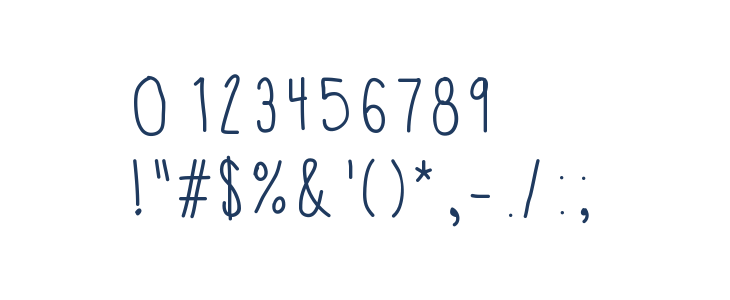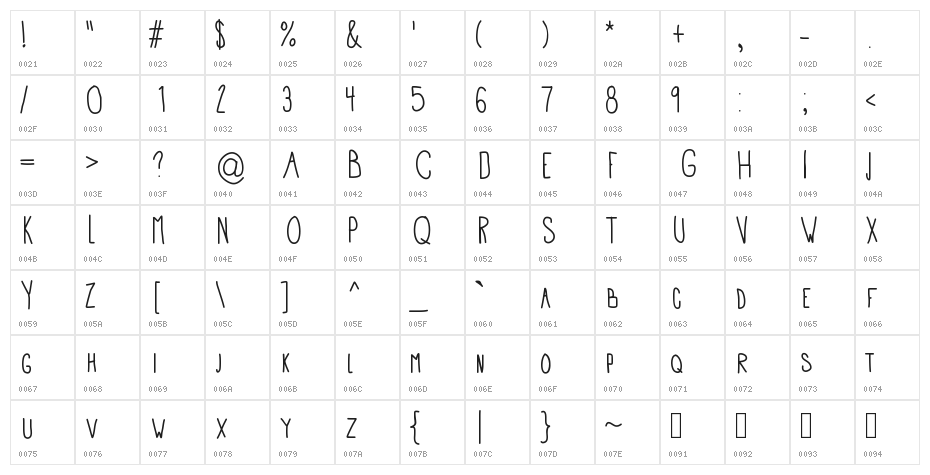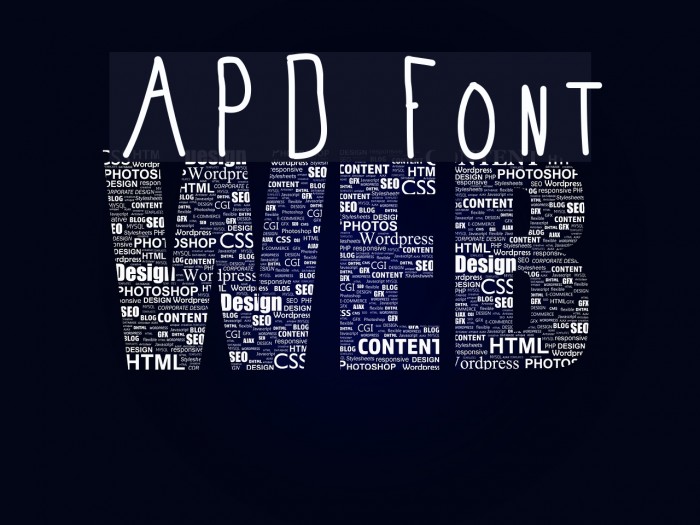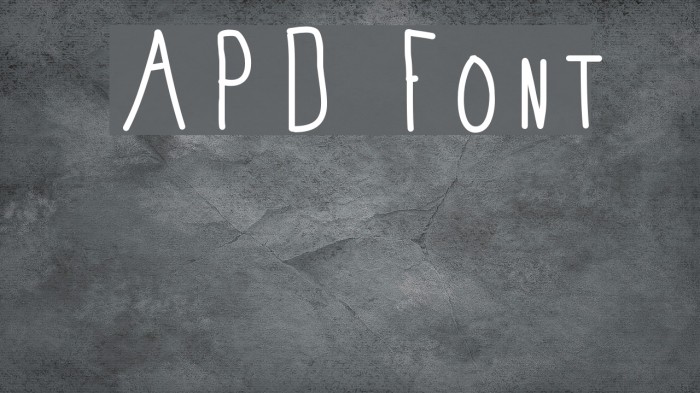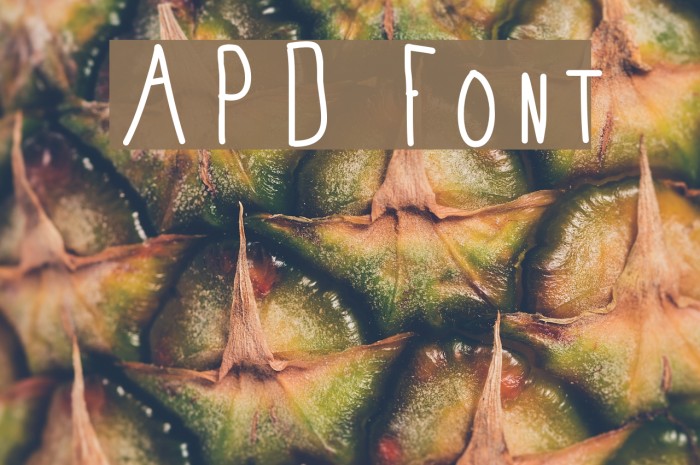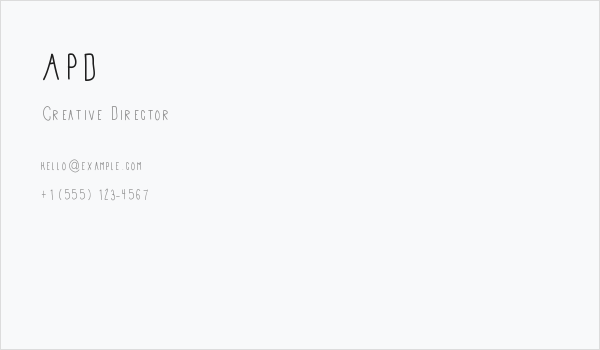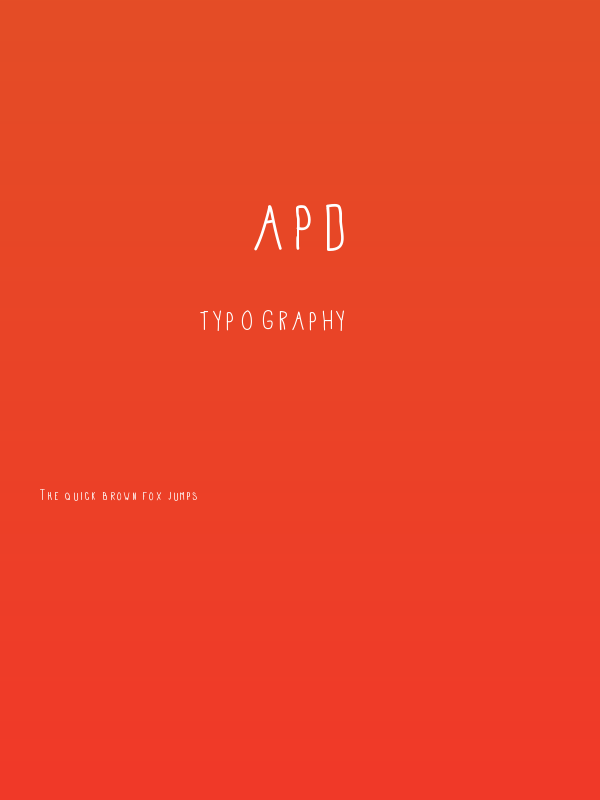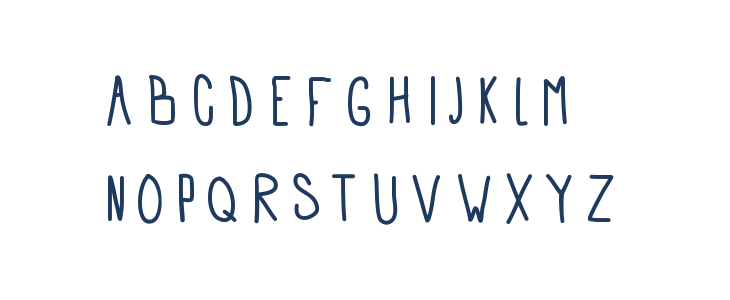
APD Font
APD Description
This font features a playful and informal handwritten style, characterized by its irregular and slightly wobbly lines. The letters are tall and narrow, with a consistent stroke width that gives it a casual and approachable feel. The uppercase and lowercase letters maintain a uniform height, contributing to its legibility while retaining a whimsical charm. Numbers and special characters follow the same design principles, ensuring a cohesive look across all glyphs. The overall appearance is friendly and relaxed, making it suitable for projects that require a personal touch.
Overall StyleCasual
Use CaseHeadlines, Informal text, Creative projects
Proposed ProjectsIdeal for greeting cards, children's books, casual branding, and social media graphics.